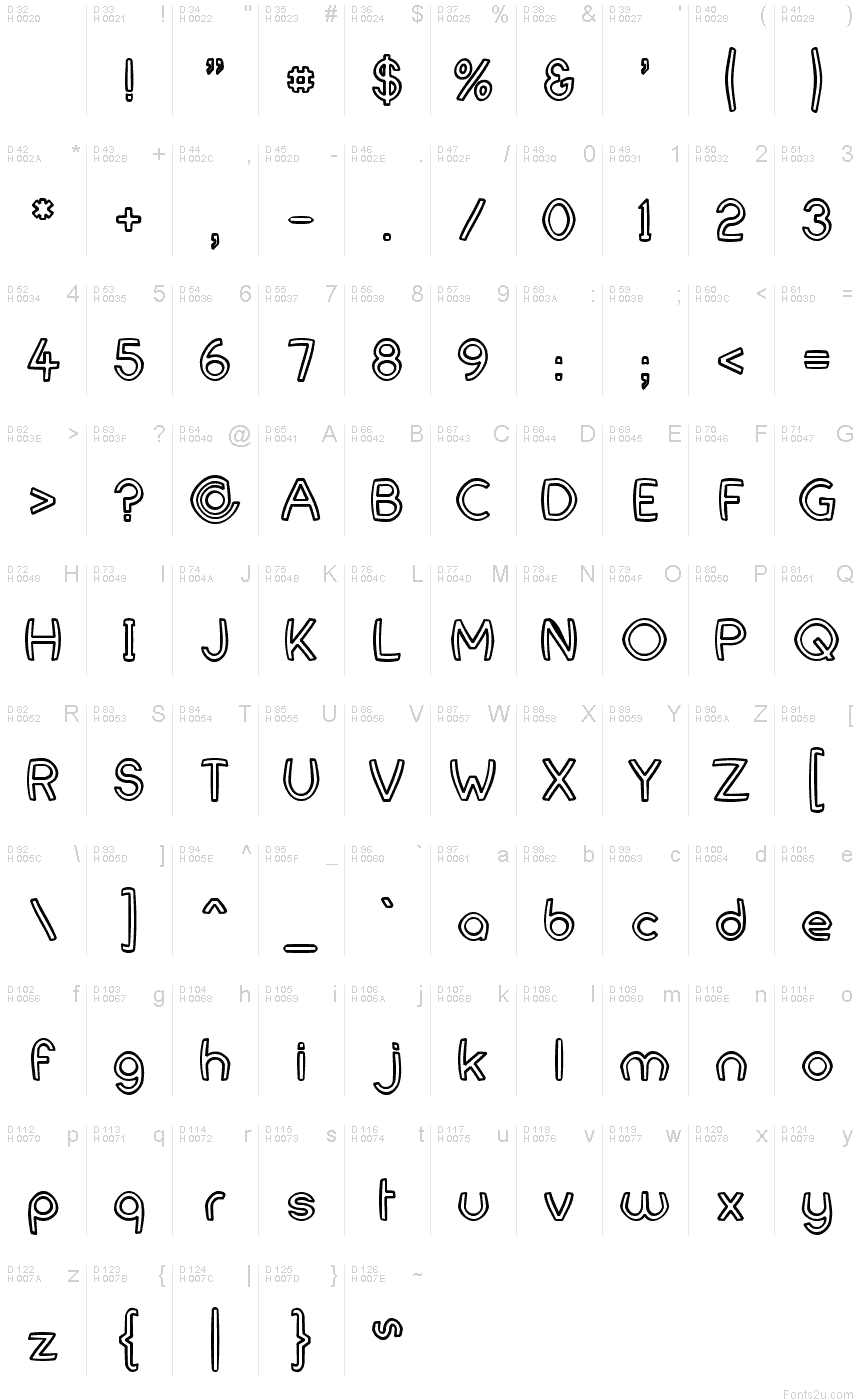
FortuneCity Comic Outline
Fortune City Comic Outline by GemFonts is a free outlined cartoon display font with rounded, hand-drawn contours, broad circular forms, and an easygoing, buoyant comic-strip spirit. The loose contours and gently uneven strokes keep it informal.
Children's publishing is its most convincing setting, since the open shapes resemble lettering drawn for a cheerful illustrated story. That same friendly outline can turn snack packaging, party posters, and casual game graphics into part of the artwork, especially when filled with colors or textures.